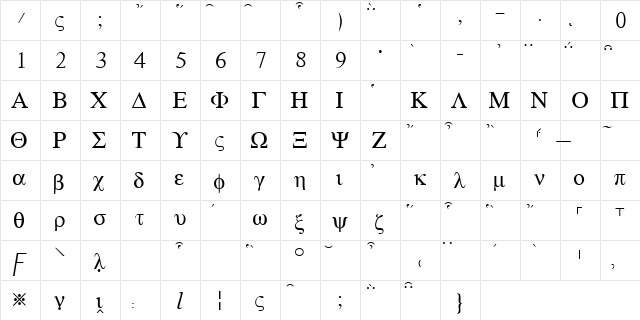
e-greek Regular
Design Context for e-greek Typeface
e-greek is a composed and adaptable typeface that performs quietly and consistently across a wide range of design contexts.
Pro Tip: Use e-greek in both headline and body roles to test its range before committing to a single application.